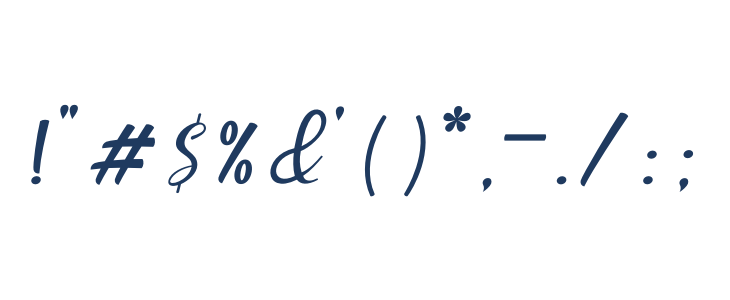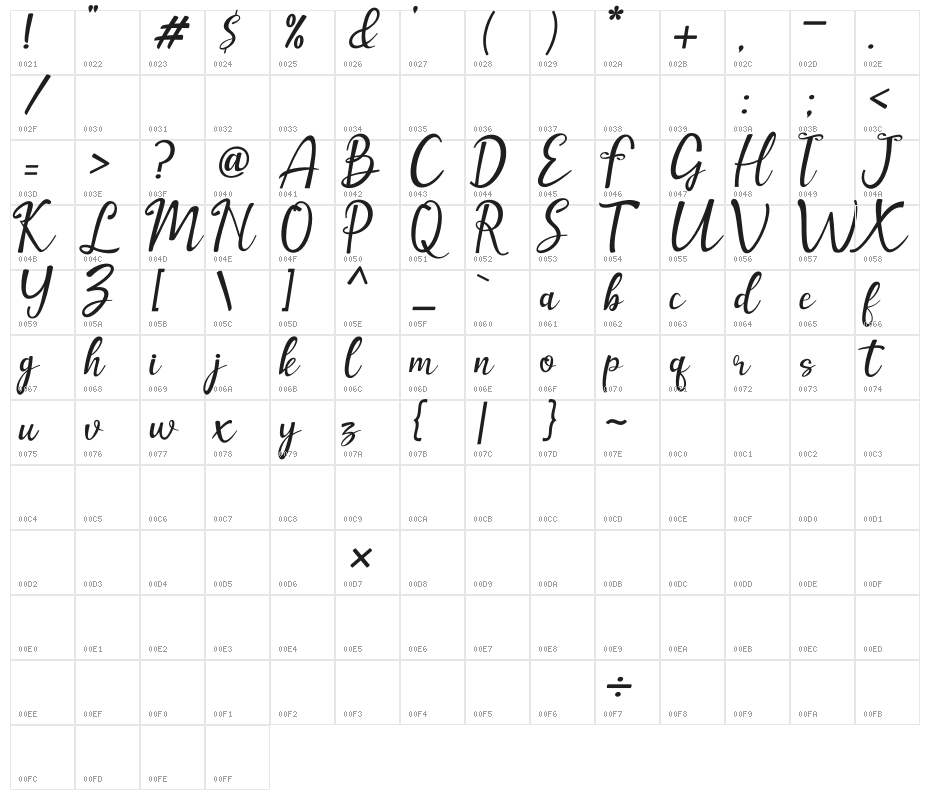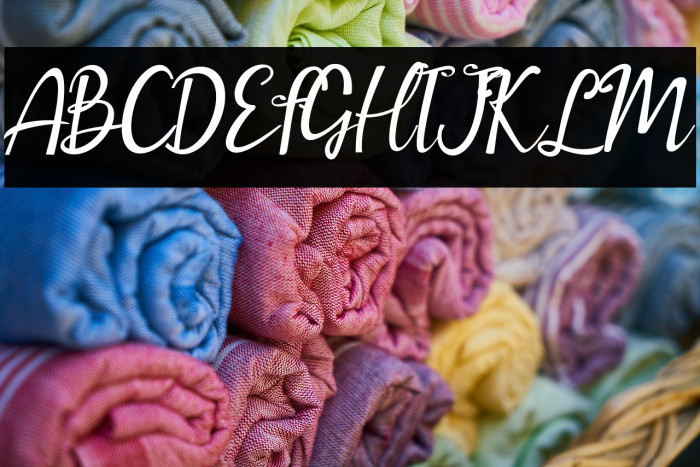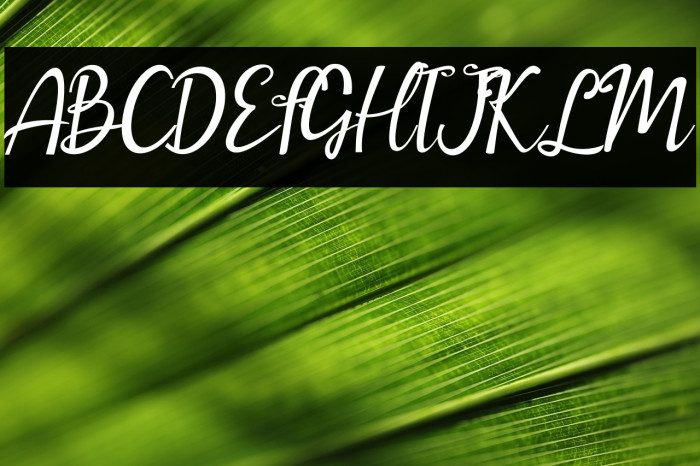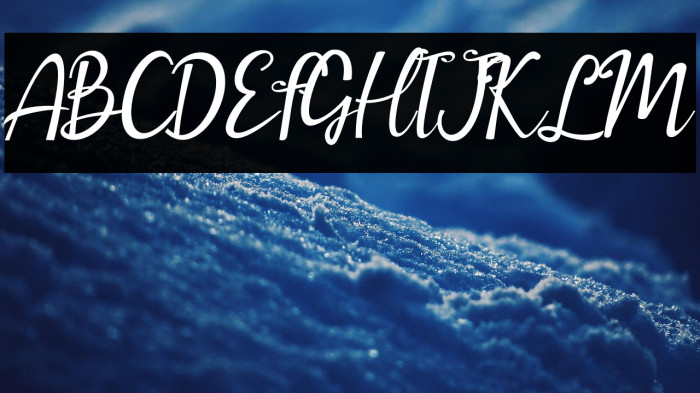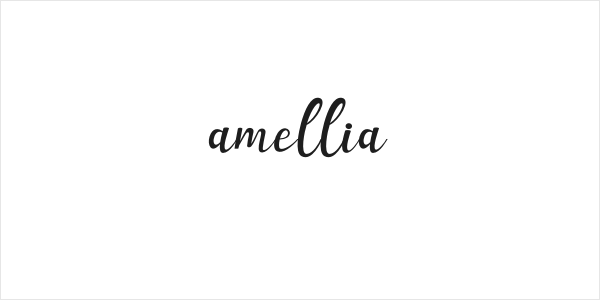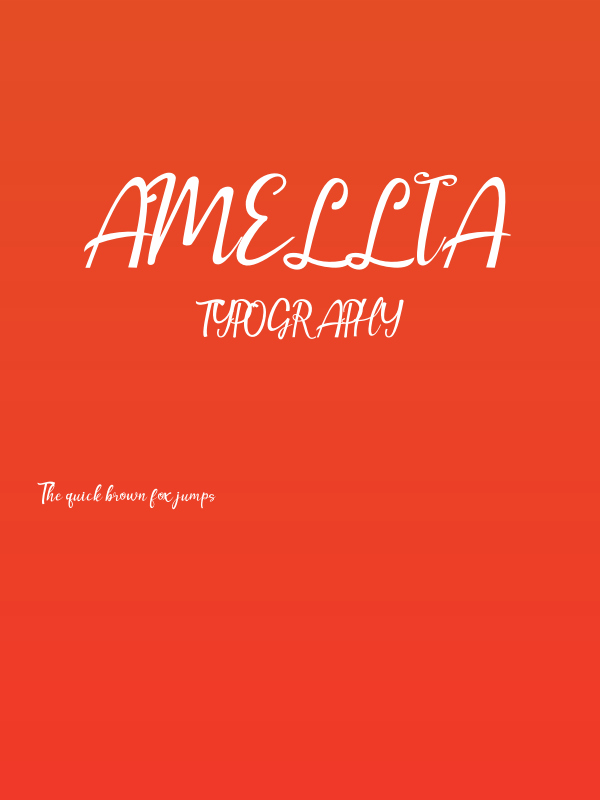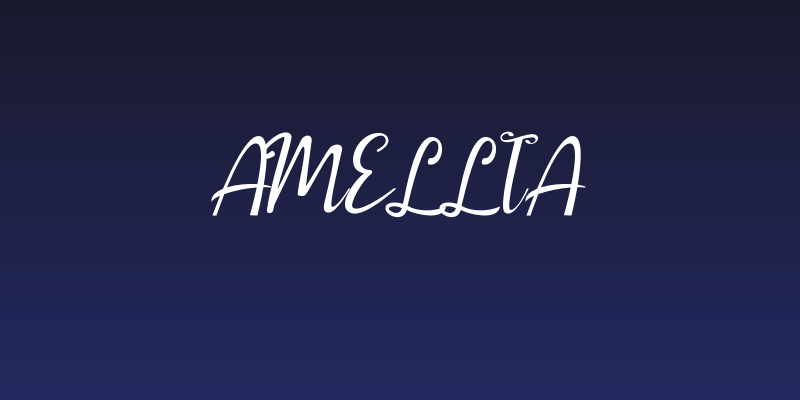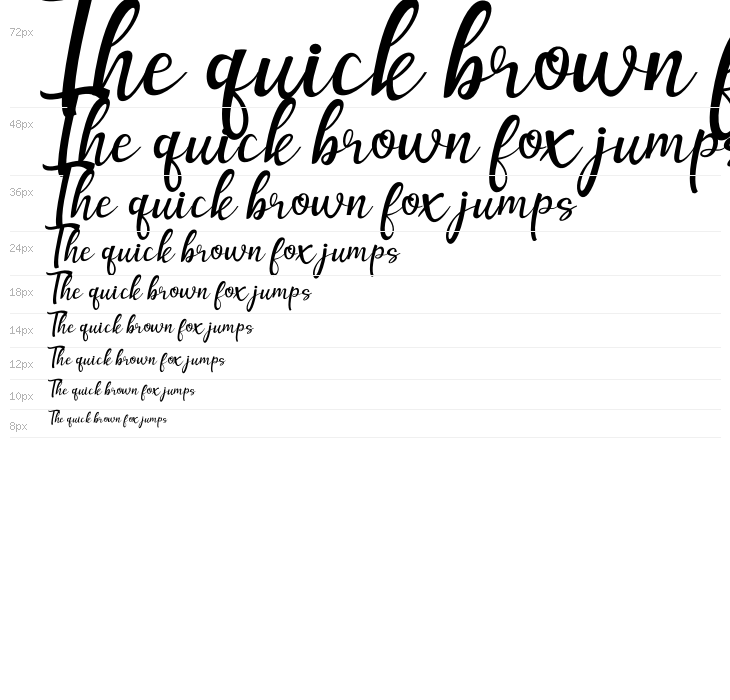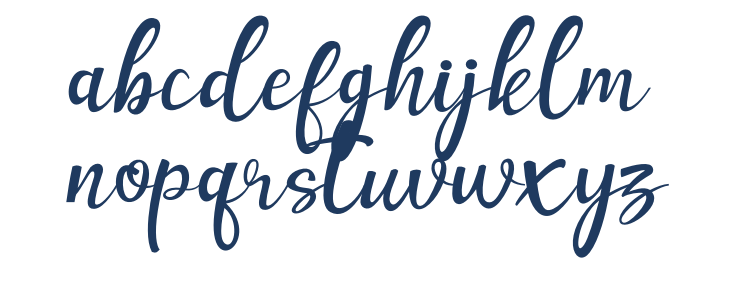
amellia Font
amellia Description
This font features a flowing, cursive script style with elegant swashes and flourishes that give it a sophisticated and artistic appearance. The uppercase letters are particularly ornate, with loops and curves that add a touch of flair. The lowercase letters maintain a consistent flow, making it suitable for creating visually appealing text. The numbers and special characters are designed to match the overall aesthetic, ensuring a cohesive look across all elements. This font is ideal for projects that require a personal, handwritten touch, such as invitations, greeting cards, and branding materials.
| Proposed Projects | Ideal for wedding invitations, greeting cards, branding, and artistic projects. |